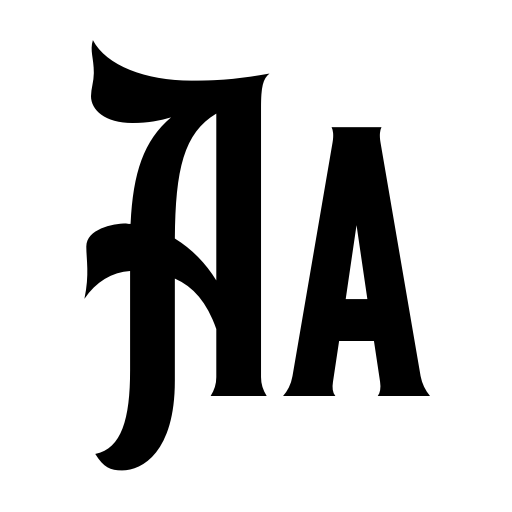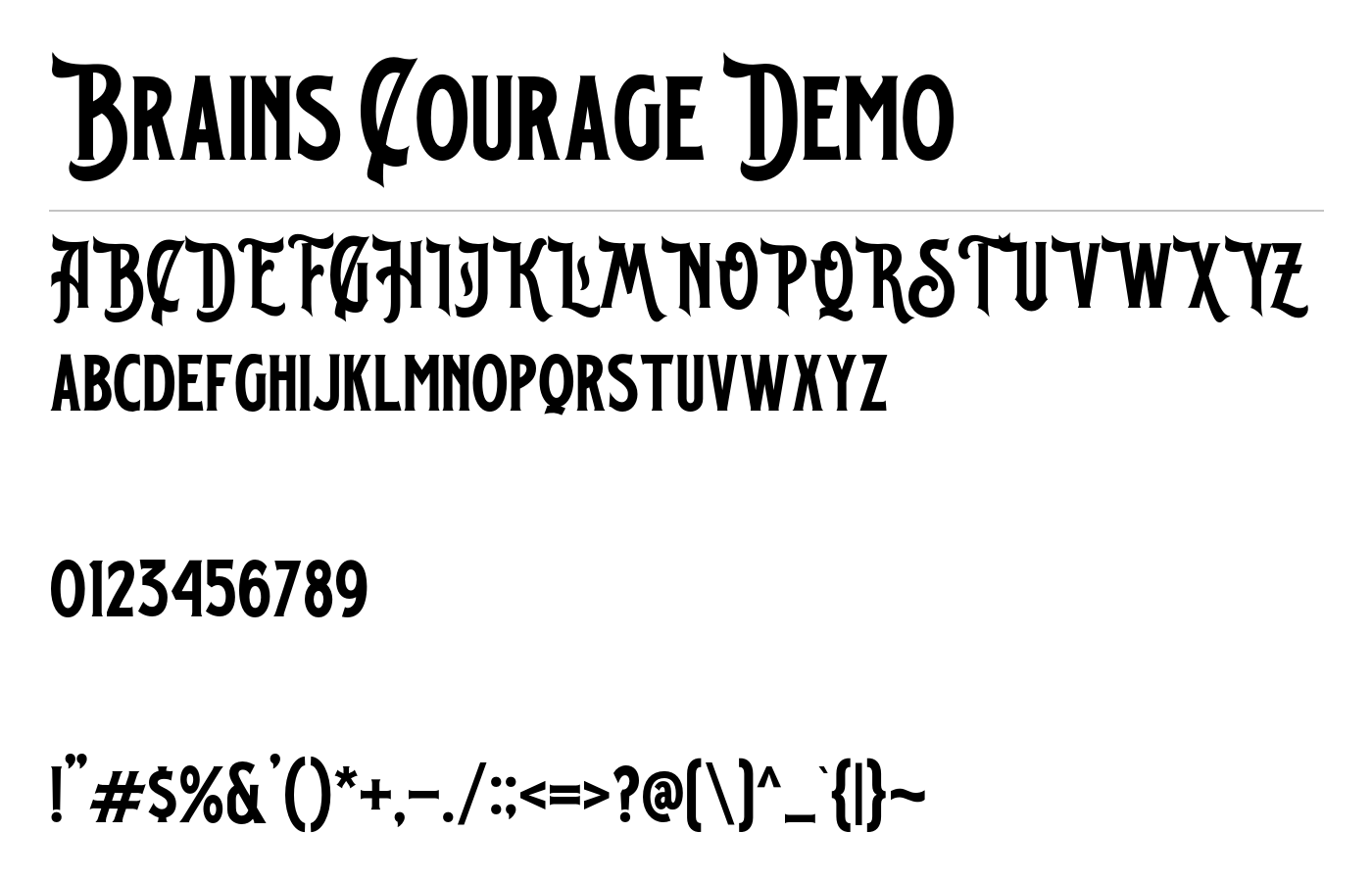
Brains Courage Demo is a distinctive serif font with a vintage, gothic-inspired style characterized by high contrast strokes and dramatic, sharp serifs with a bracketed flair. Its bold weight and tall, narrow letterforms give it a strong, confident presence, making it ideal for eye-catching headlines or branding that seeks an edgy, classical yet daring personality. This font works great for posters, logos, or any design that needs a striking, bold statement with a touch of old-world charm.
Brains Courage Demo Font
About Brains Courage Demo Font